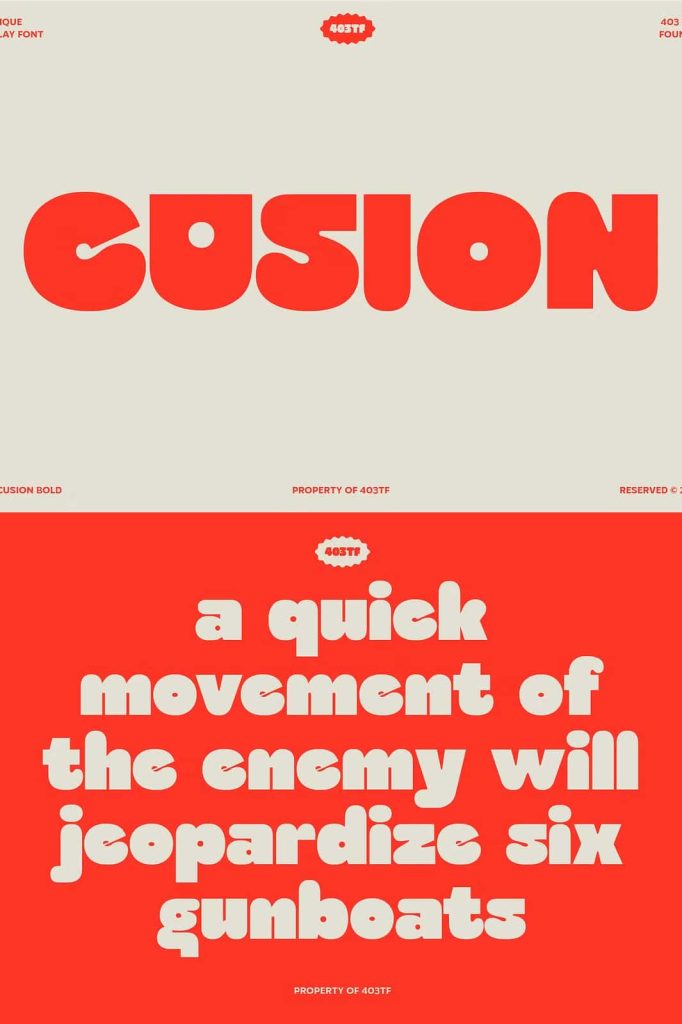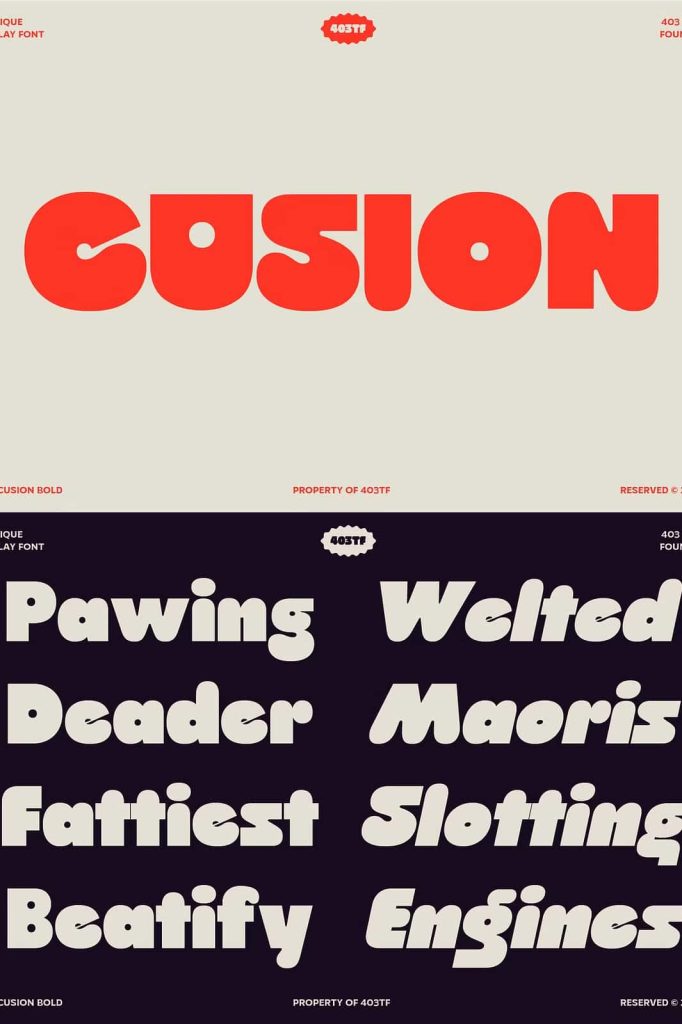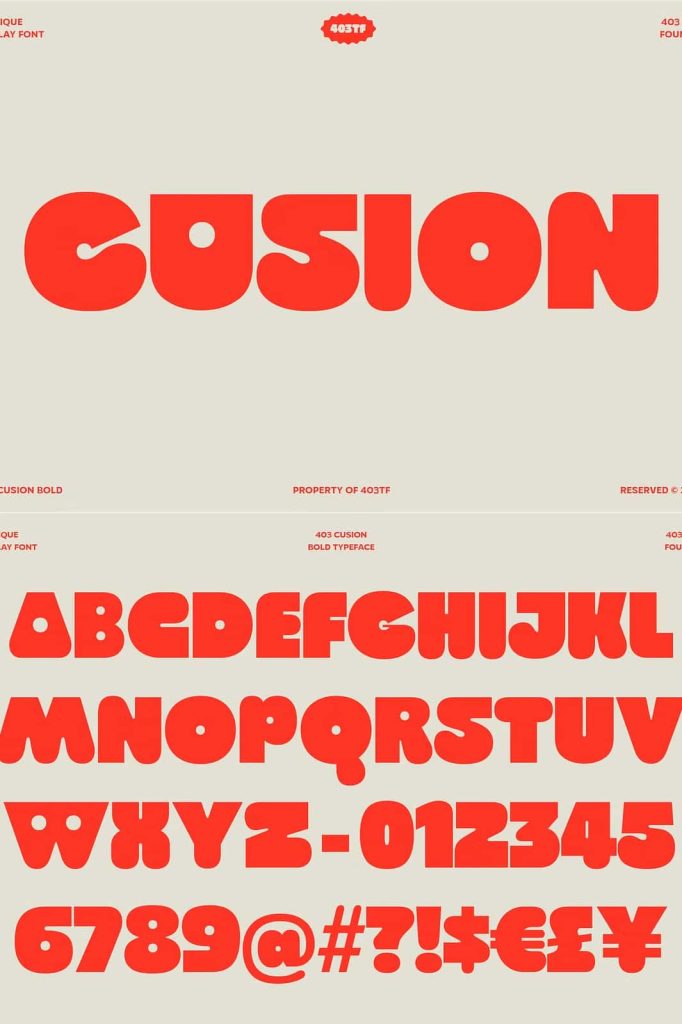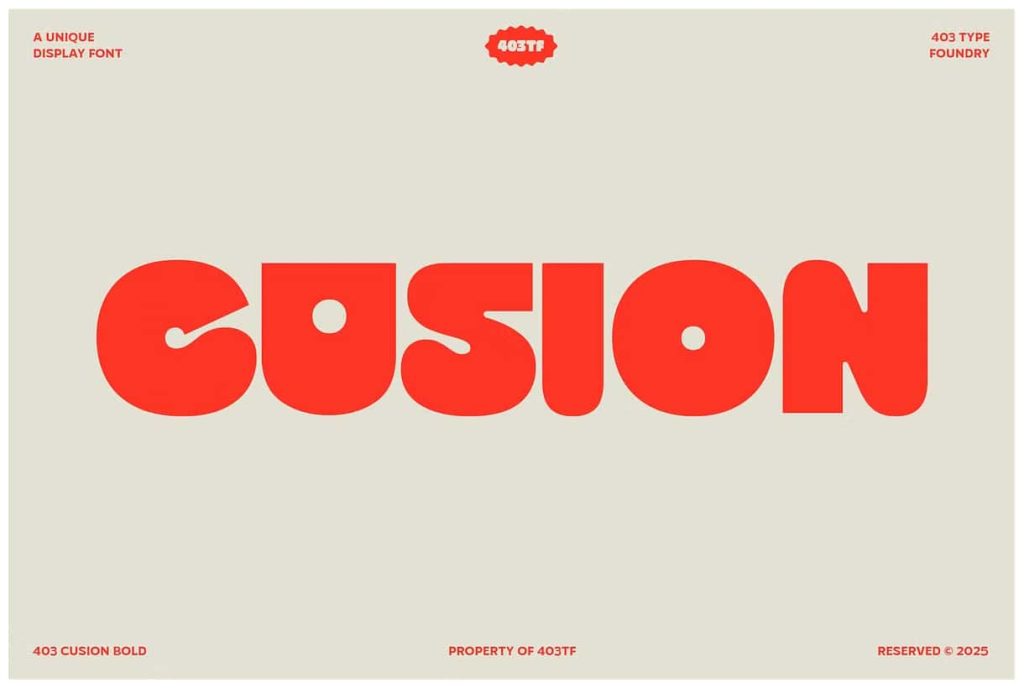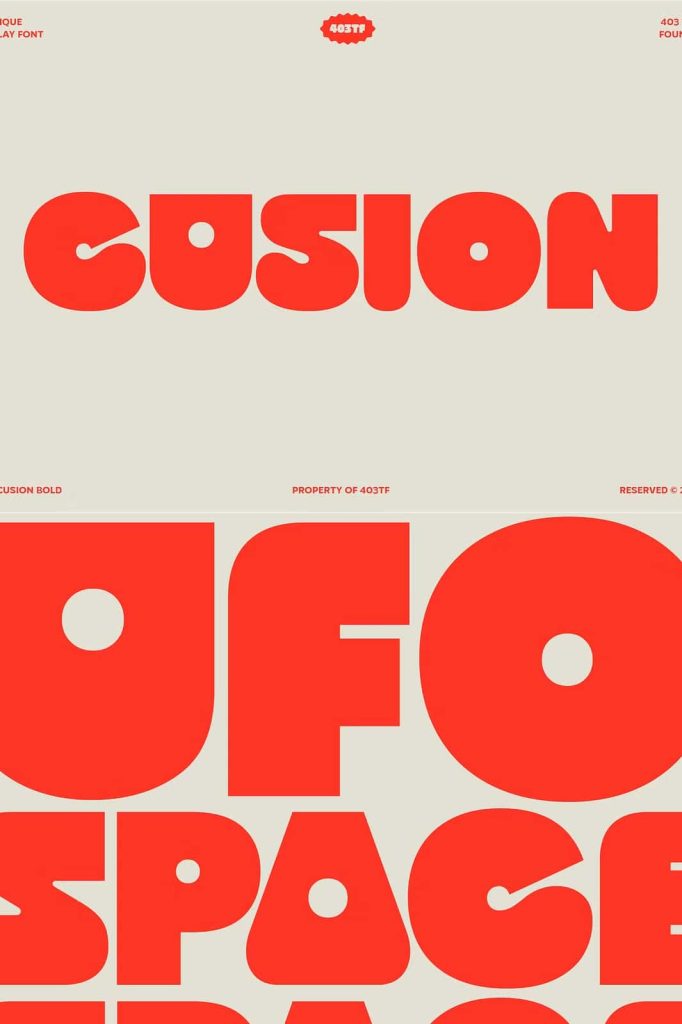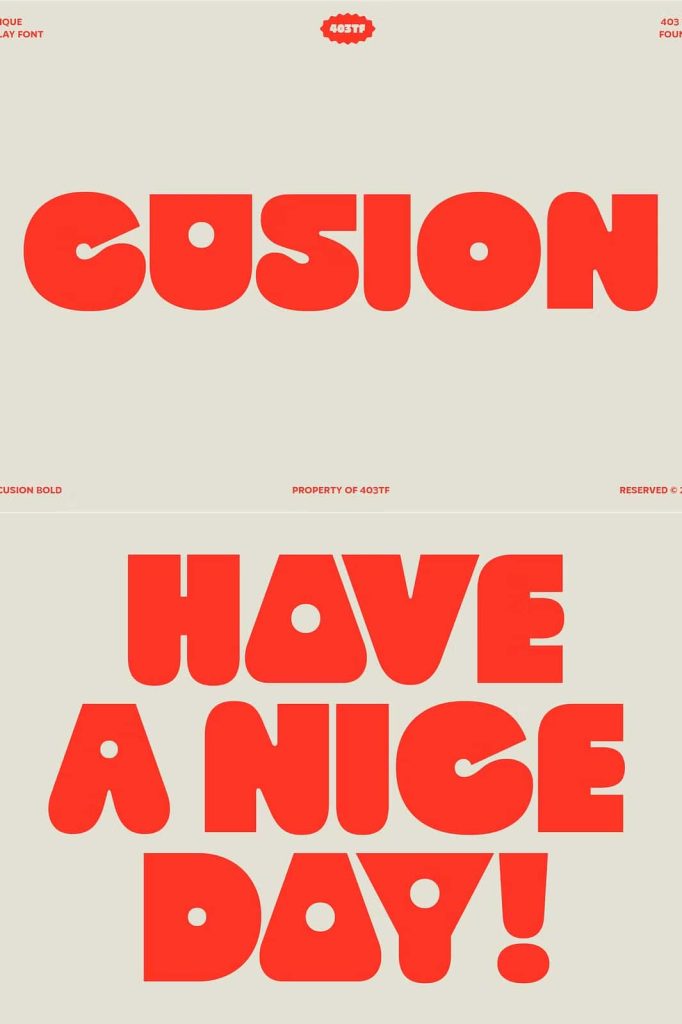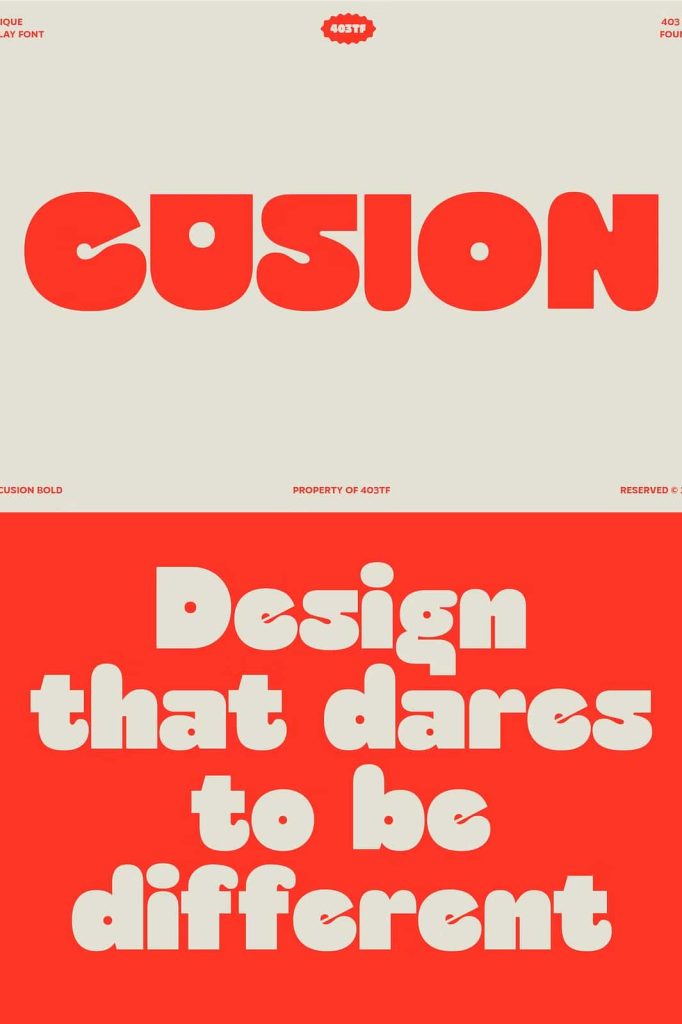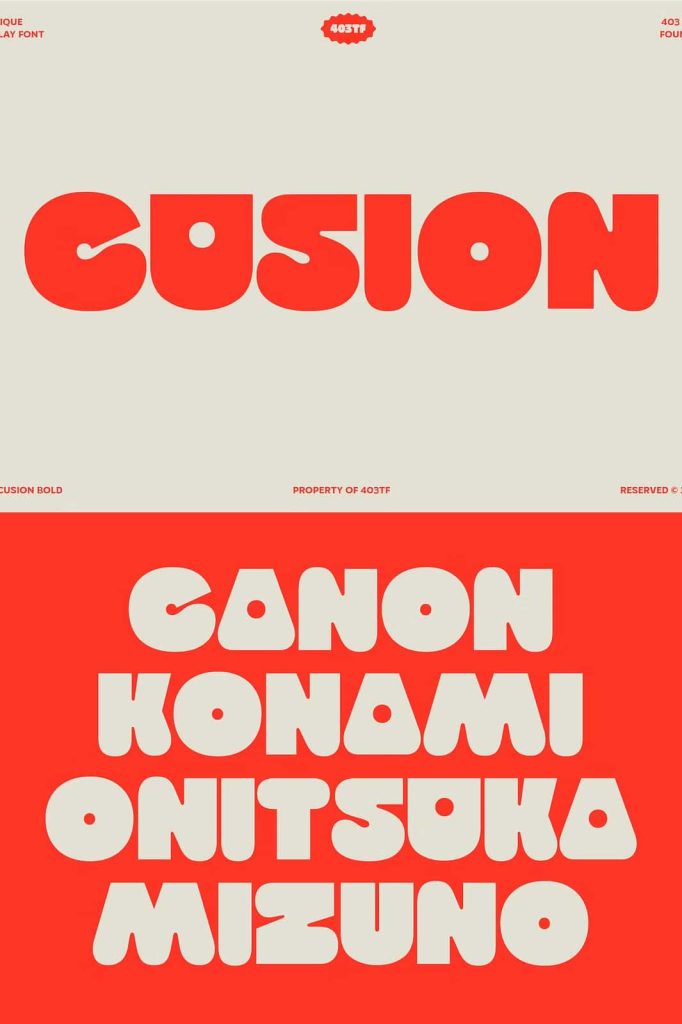
Step back in time and straight into the spotlight with 403 Cusion, the display font that packs a powerful vintage punch. Overflowing with 70s inspired personality.